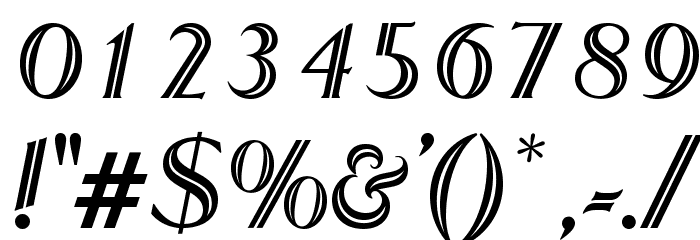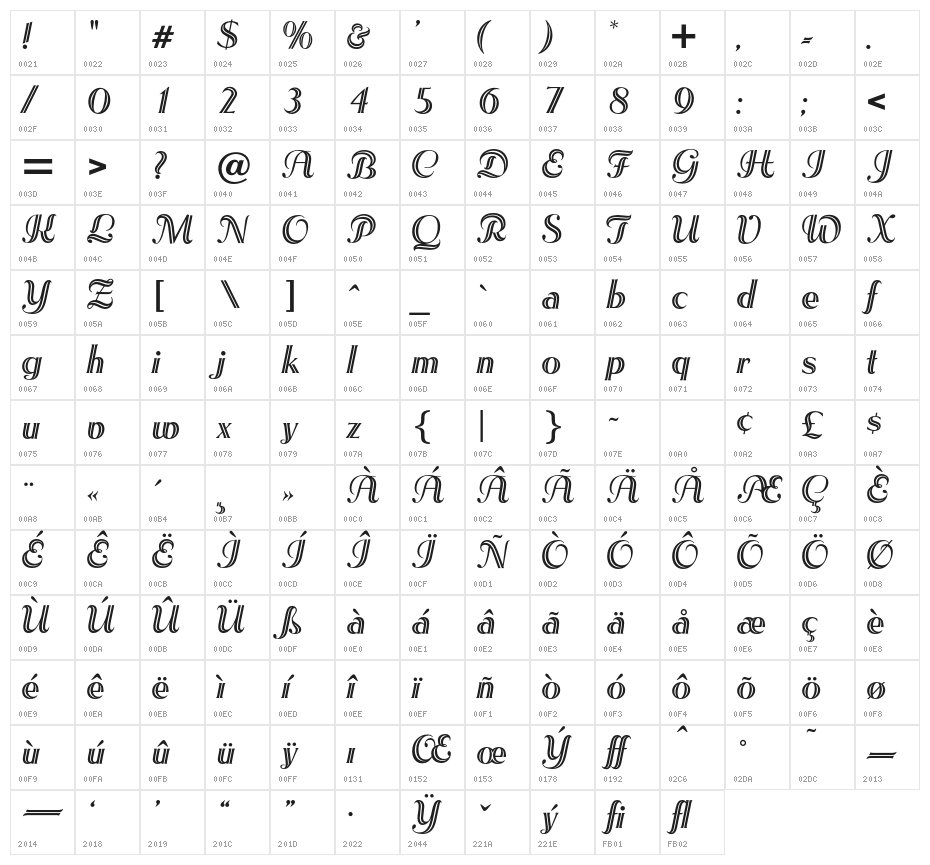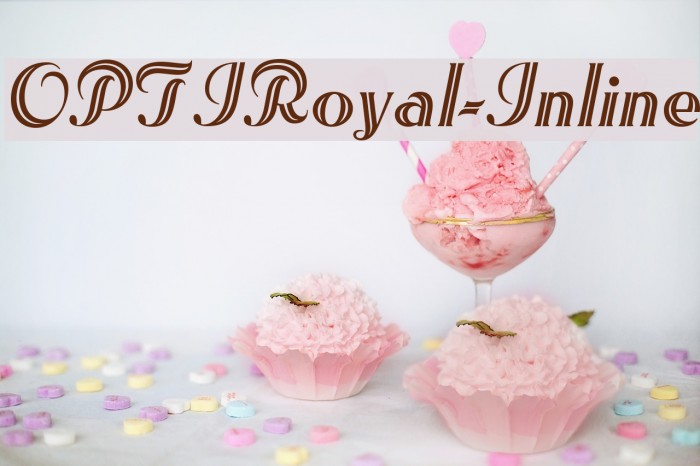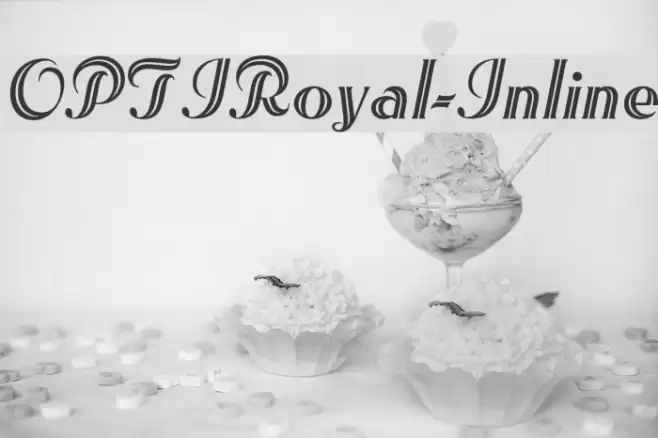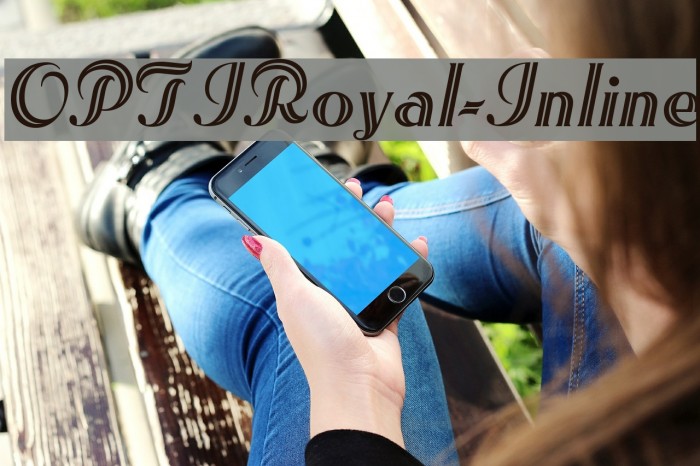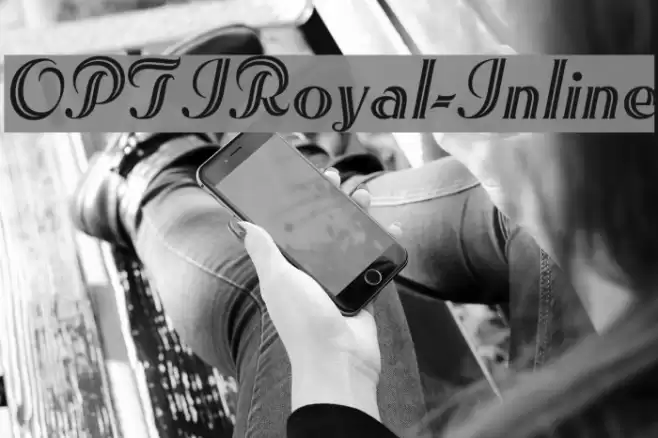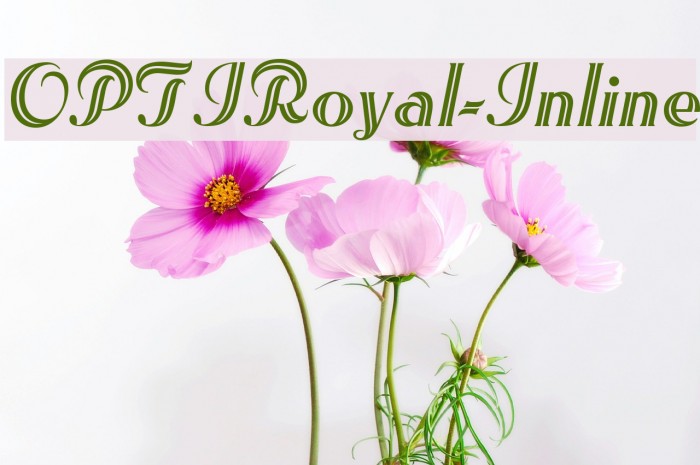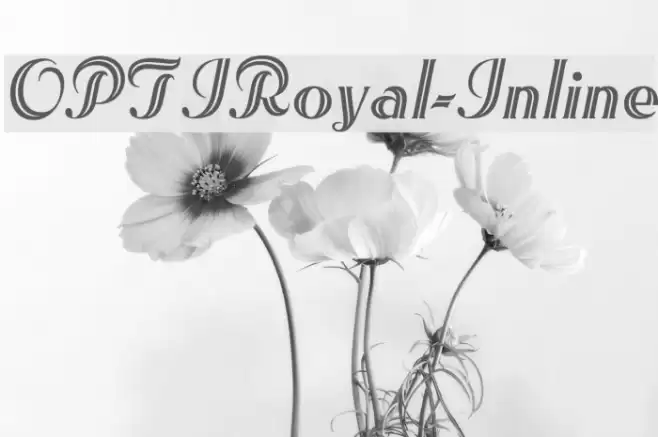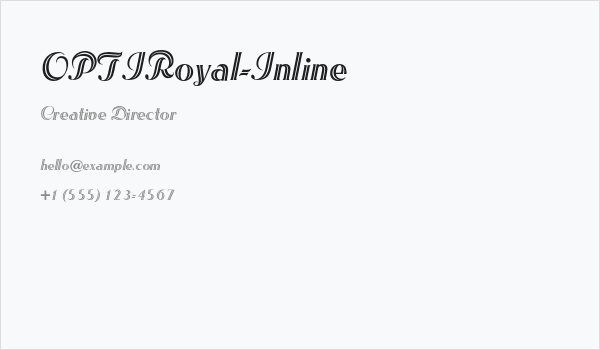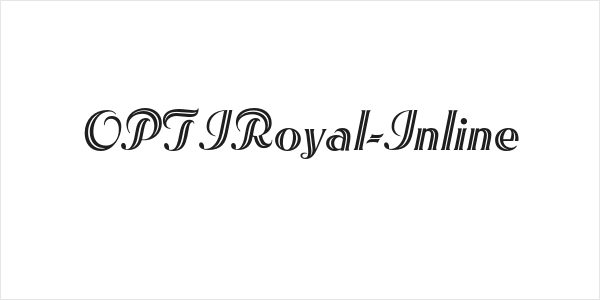
OPTIRoyal-Inline Font
OPTIRoyal-Inline Description
This font features an elegant and sophisticated design with a distinctive inline style. The uppercase letters exhibit a graceful flow with subtle curves and a classic serif touch, while the lowercase letters maintain a harmonious balance with a slightly more modern feel. The numerals are stylishly crafted, complementing the overall aesthetic. Special characters are thoughtfully integrated, enhancing the font's versatility. The inline detail adds a unique dimension, making it stand out in various applications. Its refined appearance makes it suitable for projects that require a touch of class and distinction.
| Proposed Projects | Ideal for luxury branding, wedding invitations, high-end product packaging, and editorial design. |